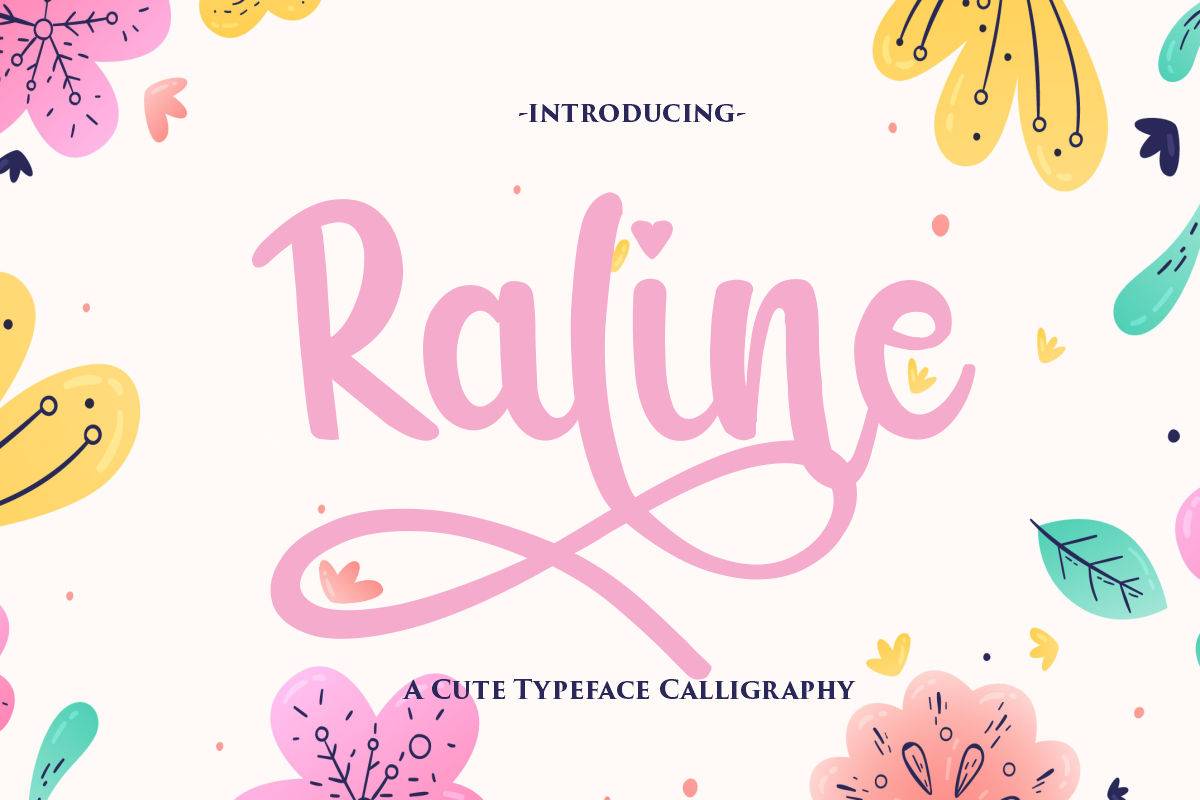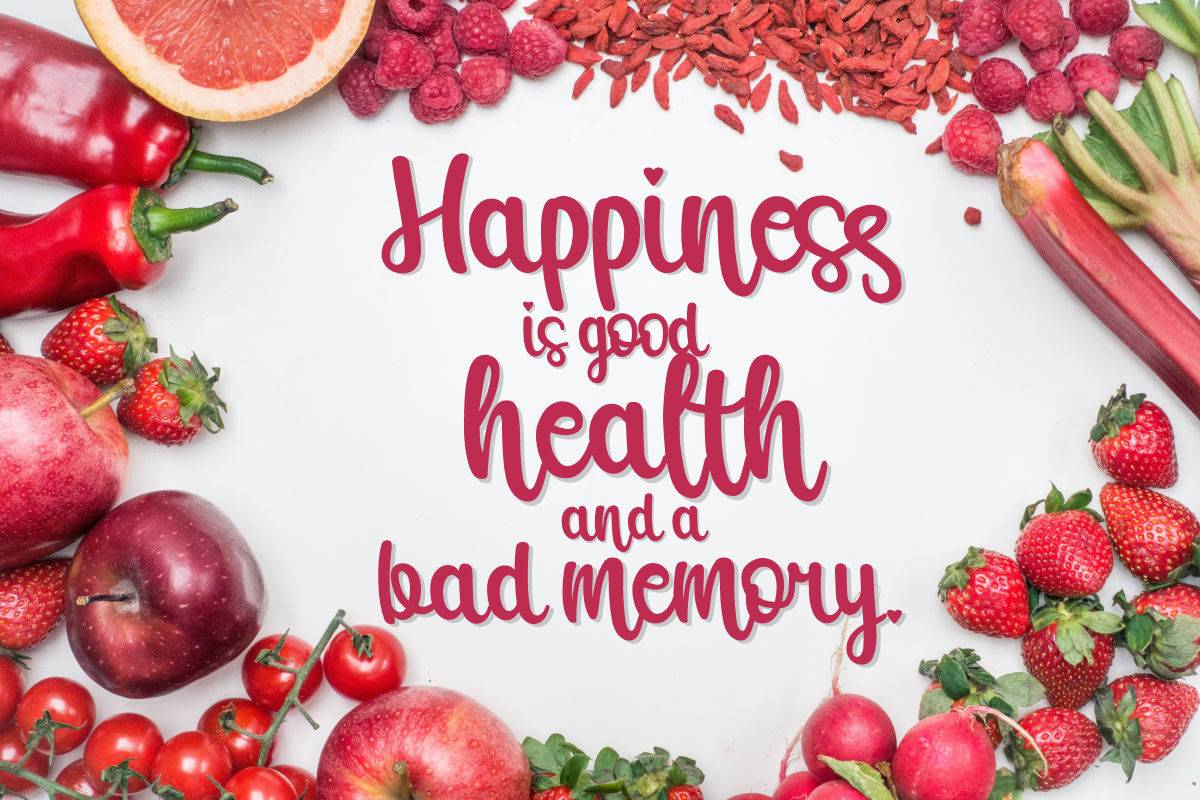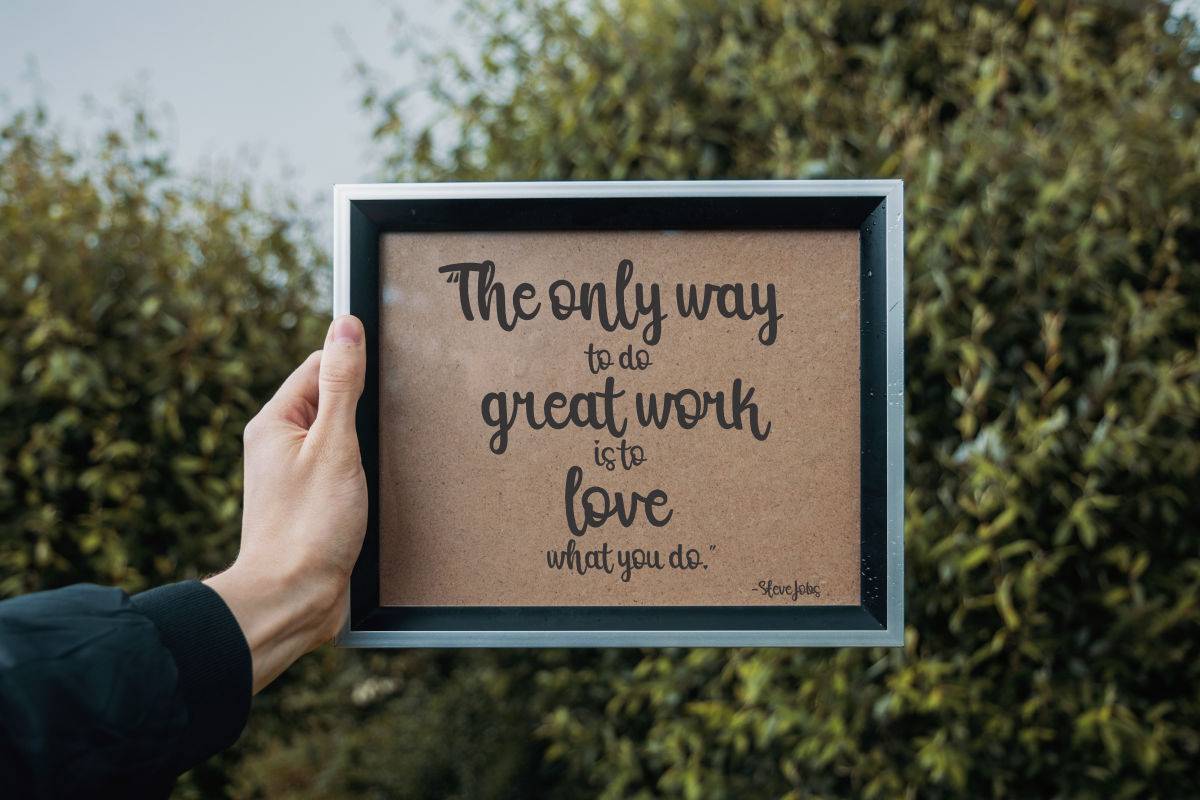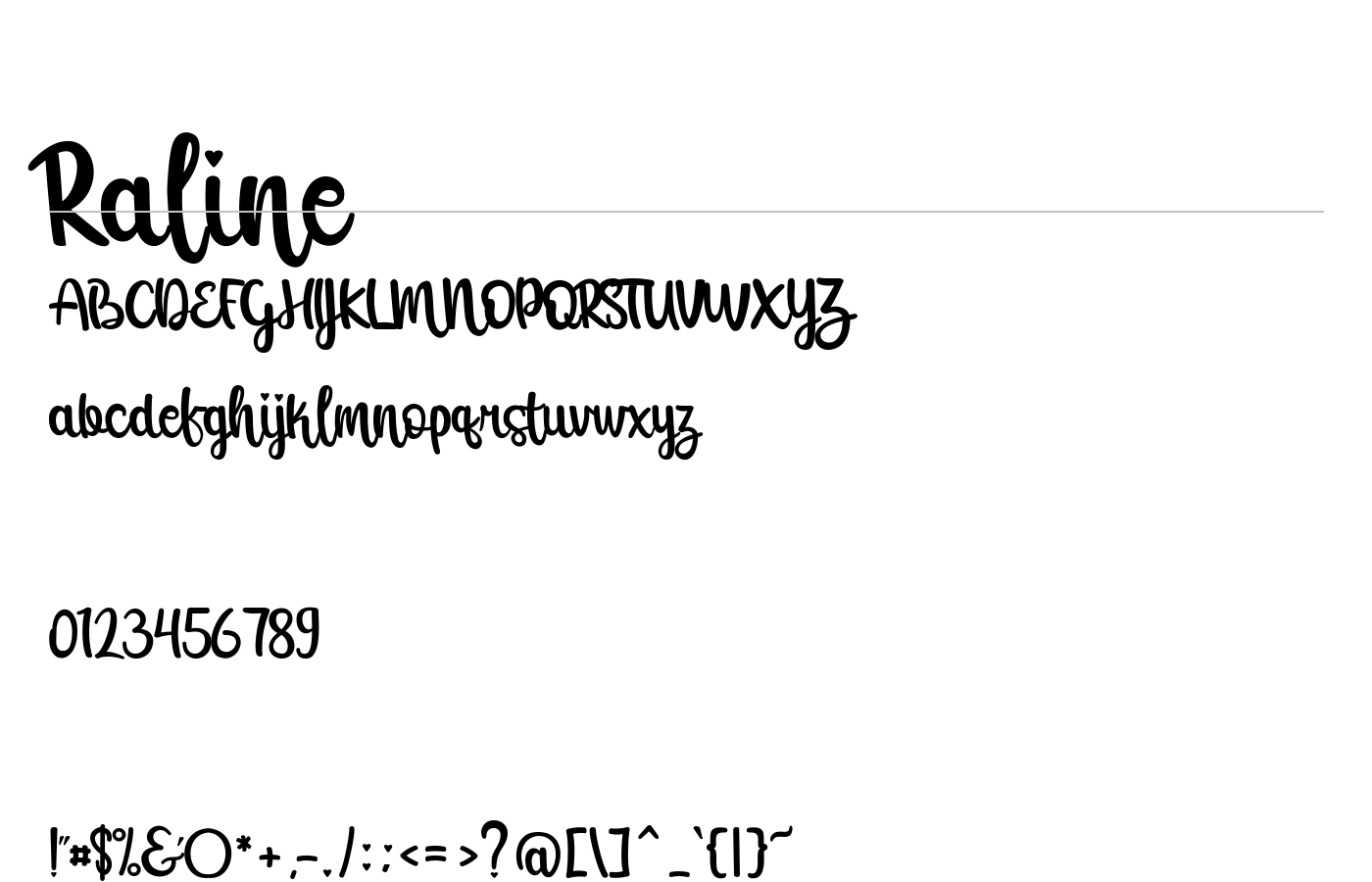
Raline is a playful and friendly handwritten script font with a casual, inviting feel. Its smooth, rounded strokes and unique letterforms, including quirky details like a heart-shaped dot, make it perfect for fun, creative projects such as invitations, branding, and social media graphics. This font works well when you want to add a personal, cheerful touch that stands out with warmth and charm.
Raline Font
About Raline Font
| Font family | Raline Font |
| Designer | Gilar Studio |